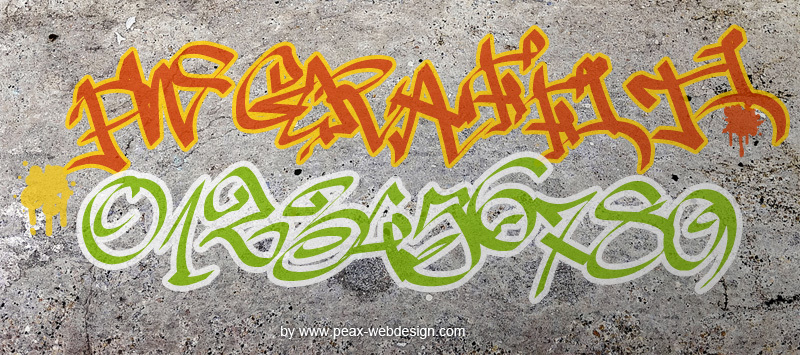
PW Graffiti by Peax Webdesign is a free graffiti script with tightly interlocked letters, abrupt shifts in weight, and a restless wall-piece silhouette, with irregular heights crowding into one another. Sharp cuts, hooked curves, and hairline sweeps keep the forms moving.
Music posters and streetwear graphics can use its aggressive movement in different ways, one as the pulse of a live event and the other as a raw fashion signature. It also suits skate merchandise and youth-oriented packaging, where the overlapping strokes can become an illustrated brand emblem rather than ordinary labeling, closely tying the lettering to underground music and street culture.